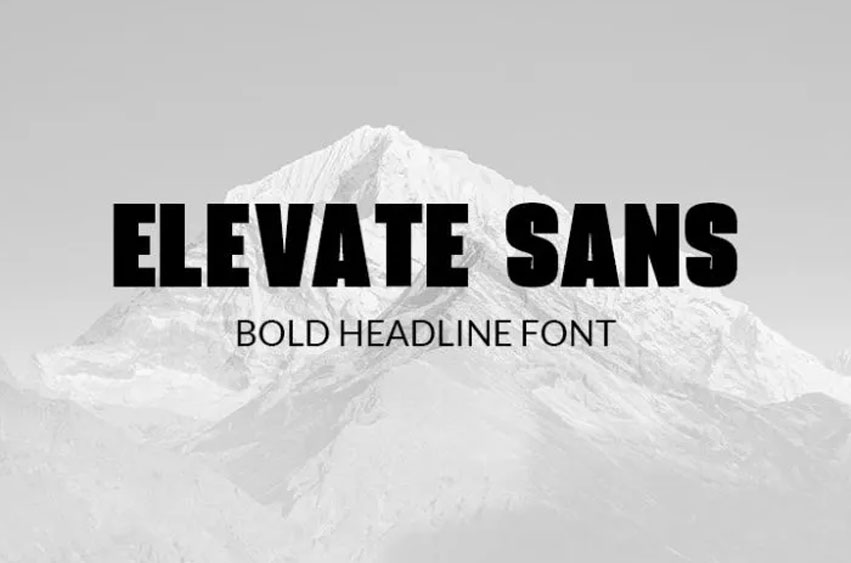
Elevate Sans Font
Elevate Sans Font is an eye-catching sans serif font perfect for headlines or texts intended to draw attention, such as advertisements and brochures.
It includes uppercase and lowercase letters as well as numbers and simple punctuation.